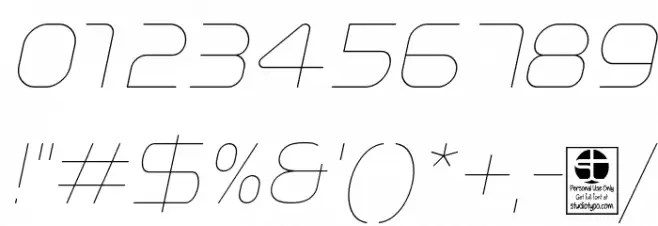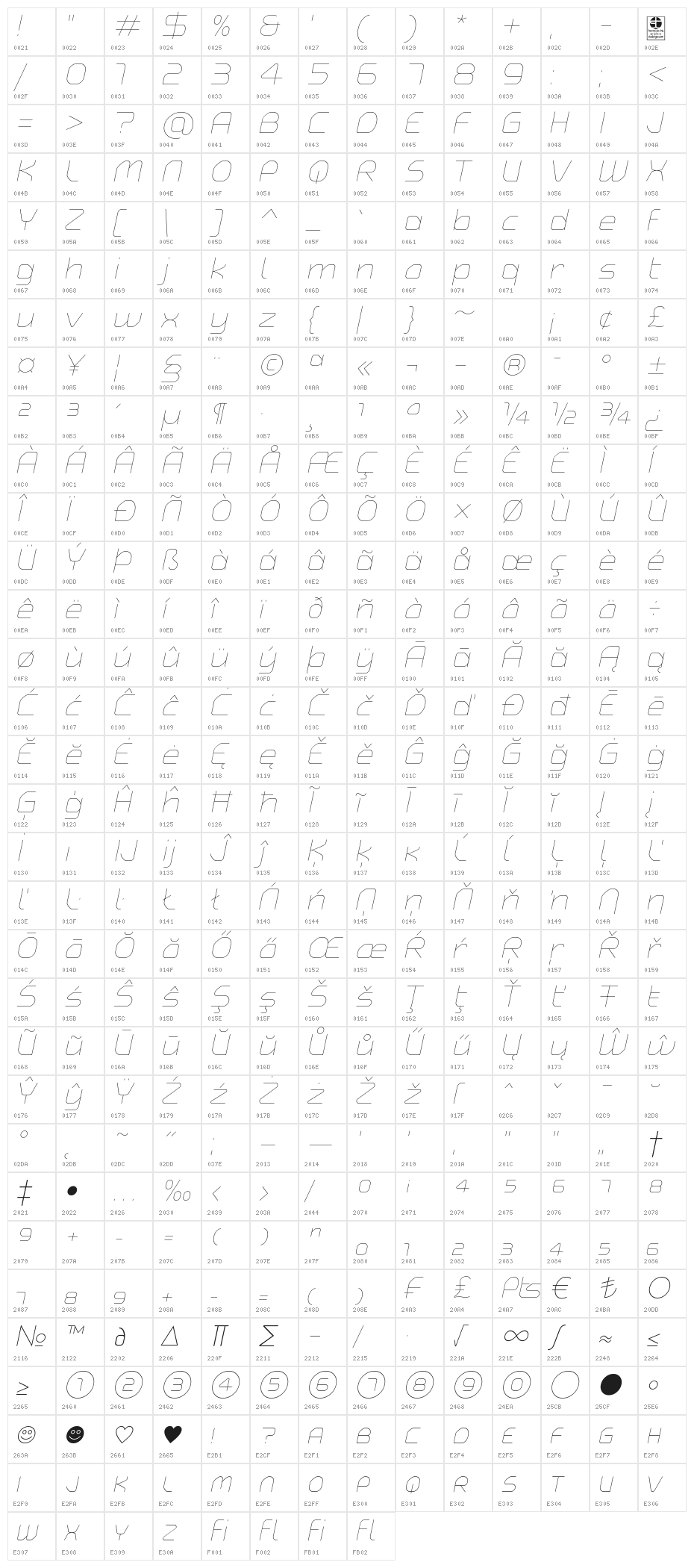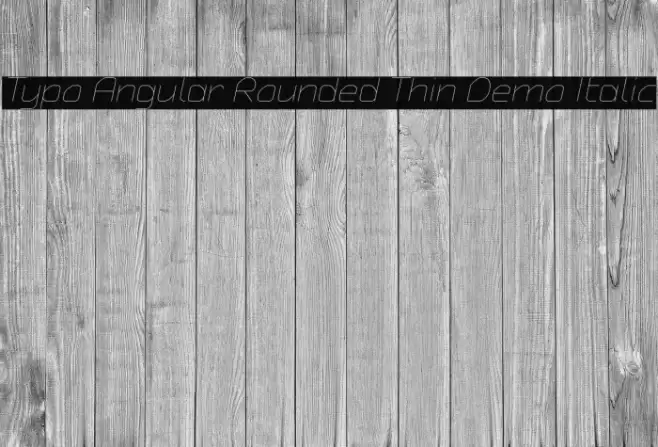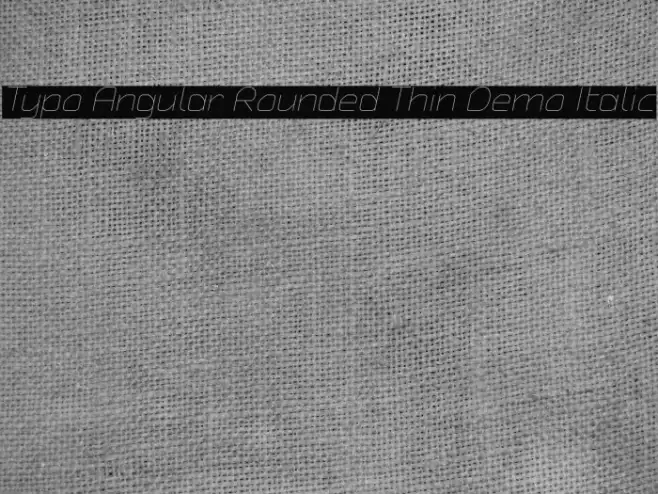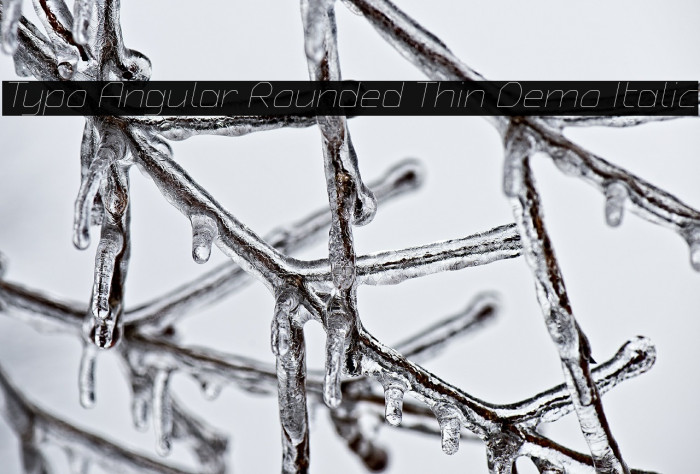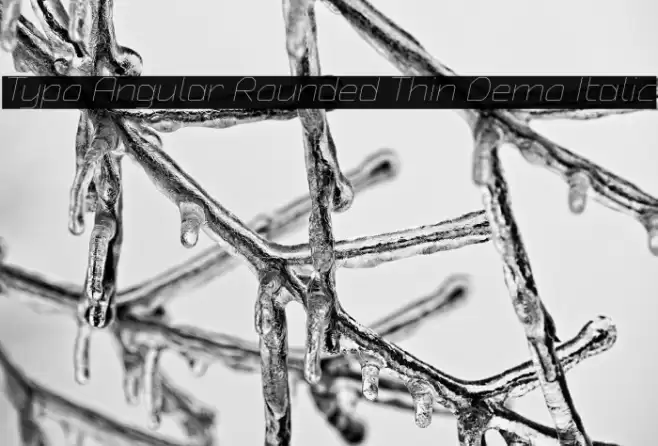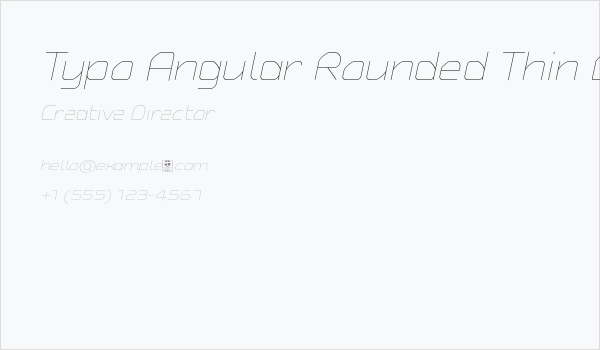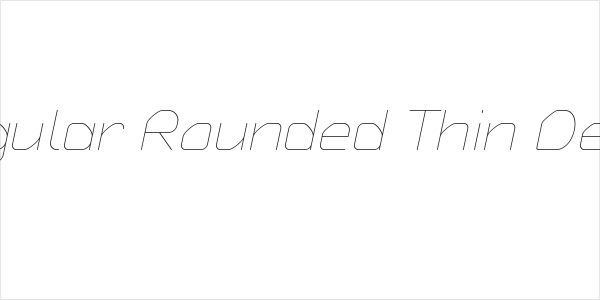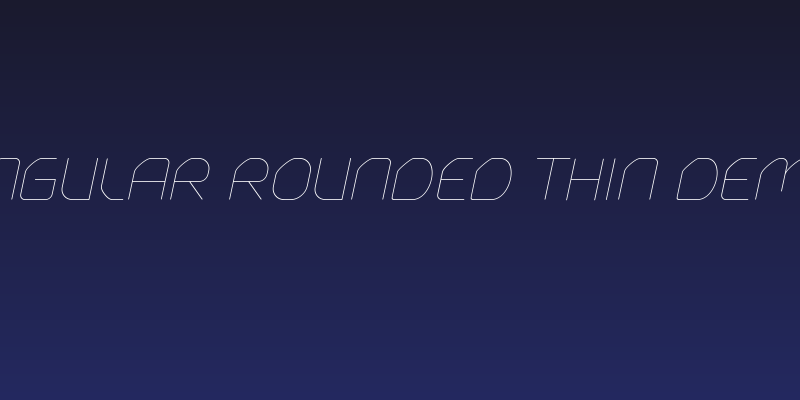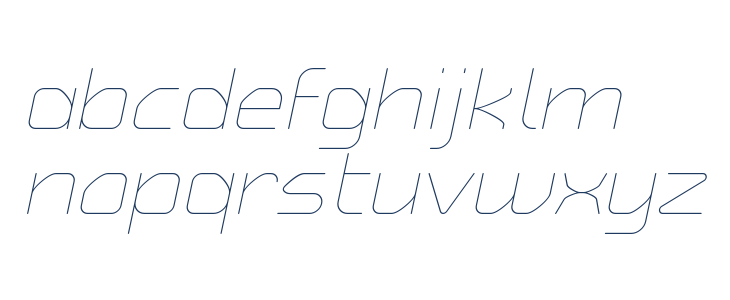
Typo Angular Rounded Thin Demo Italic Font
Typo Angular Rounded Thin Demo Italic Description
This font features a sleek, angular design with rounded edges, creating a modern and futuristic appearance. The thin strokes give it a delicate and airy feel, while the italic slant adds a dynamic and forward-moving energy. The characters are well-spaced, ensuring readability despite the thinness of the lines. The uppercase and lowercase letters maintain a consistent style, with geometric shapes and smooth curves. The numerals and special characters are designed to match the overall aesthetic, making this font versatile for various applications.